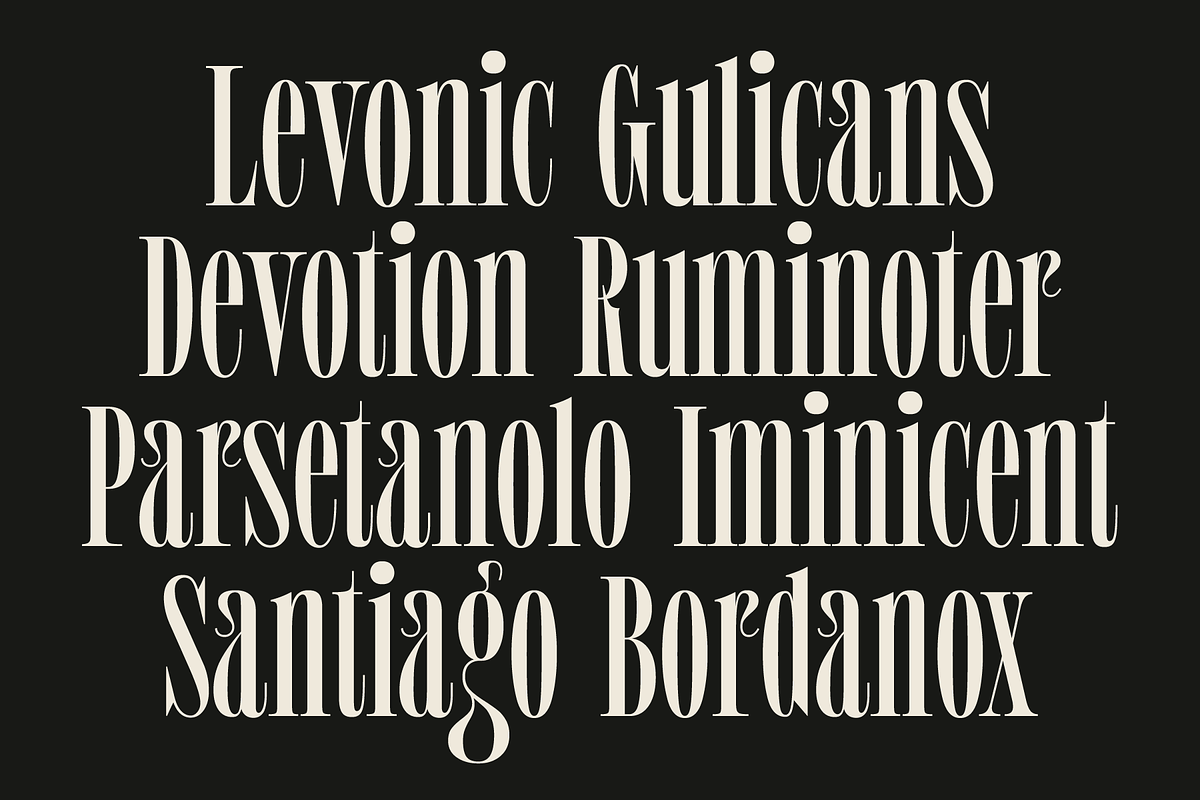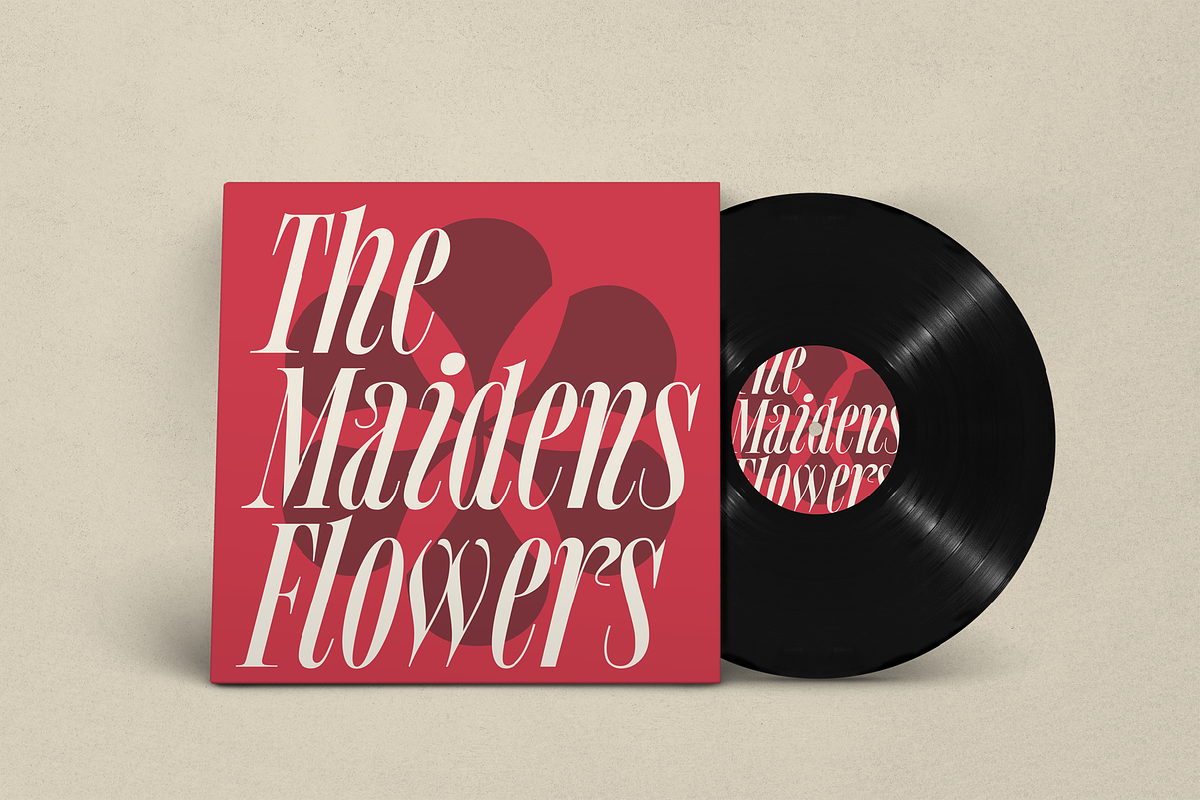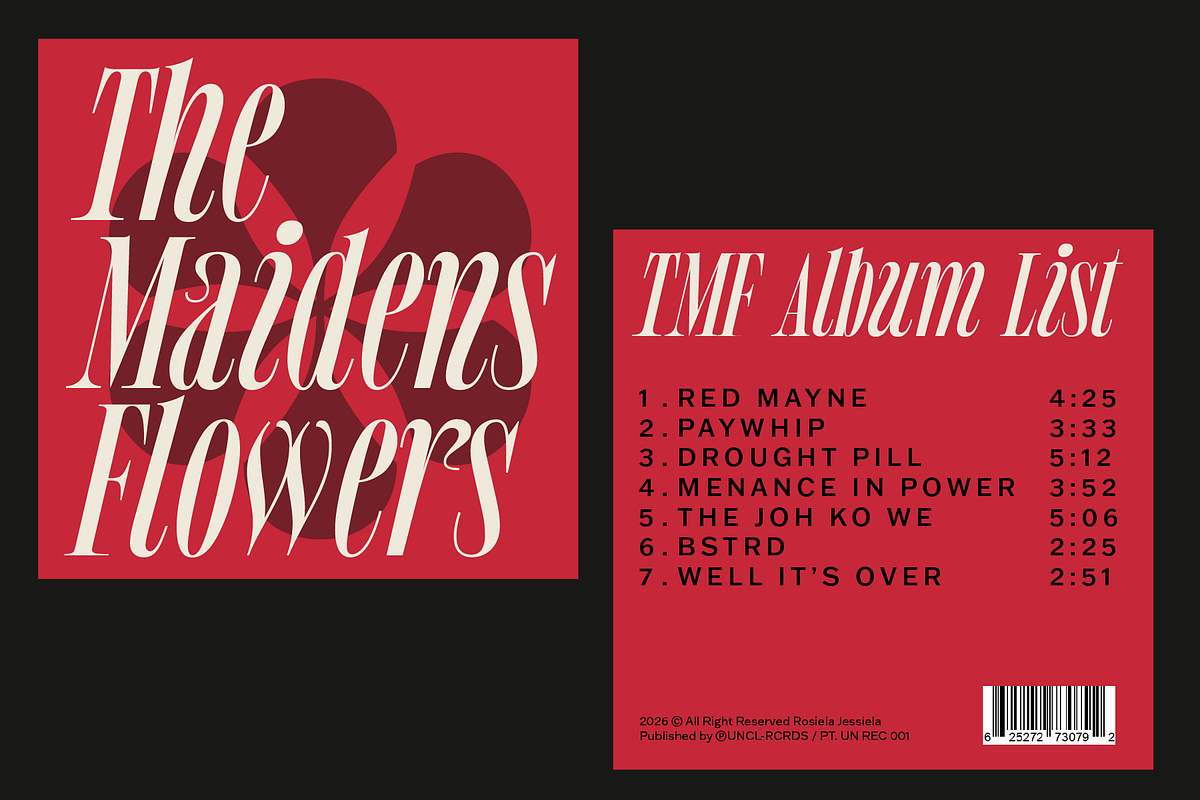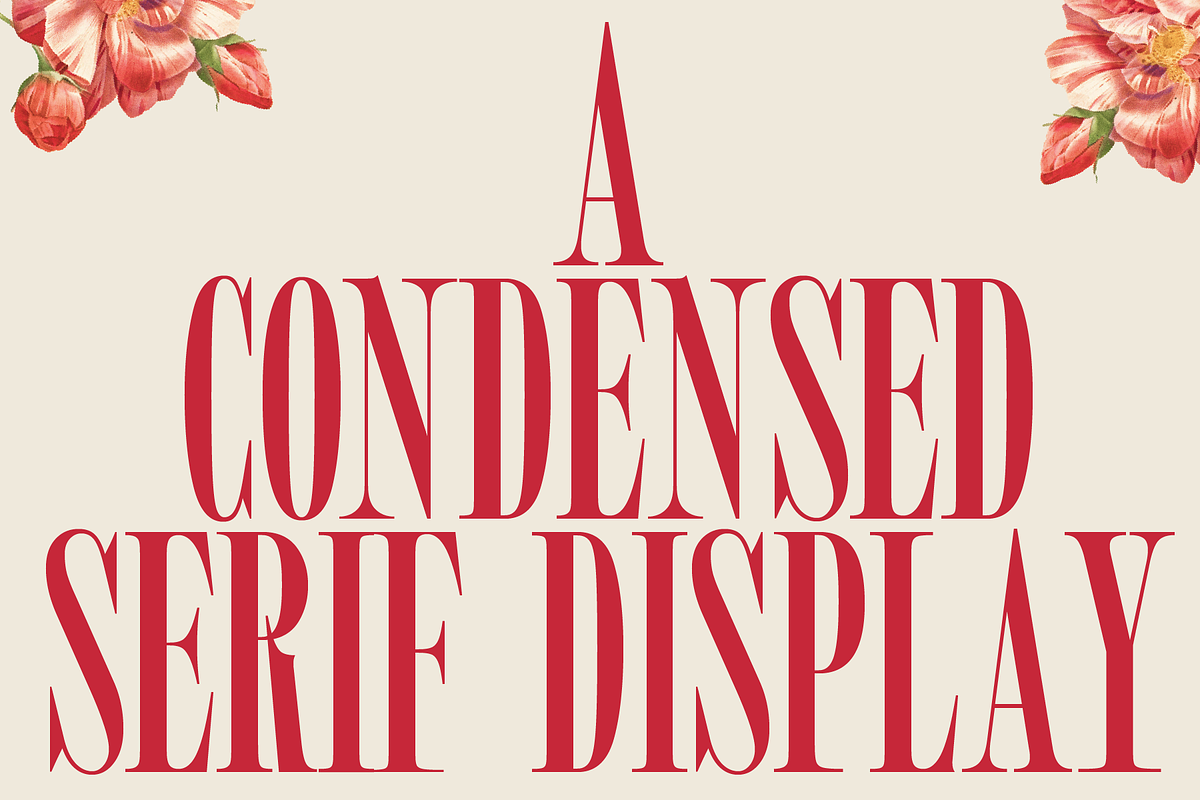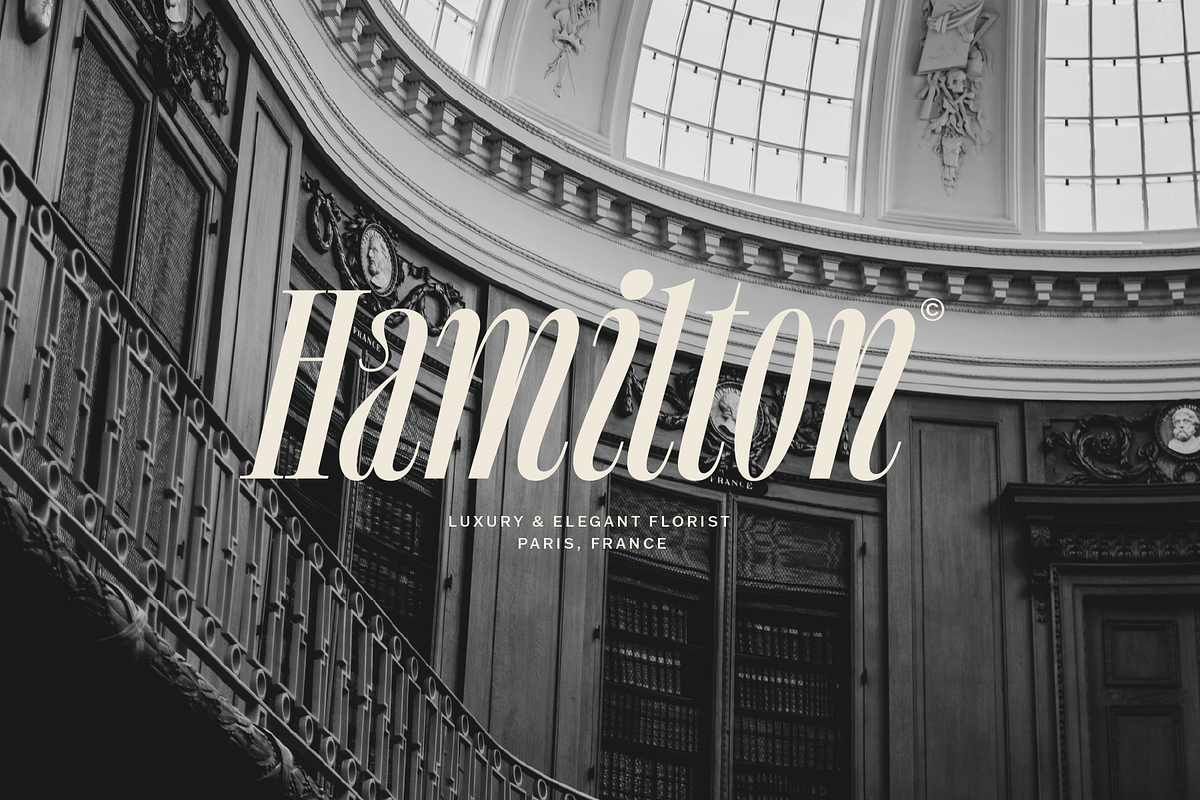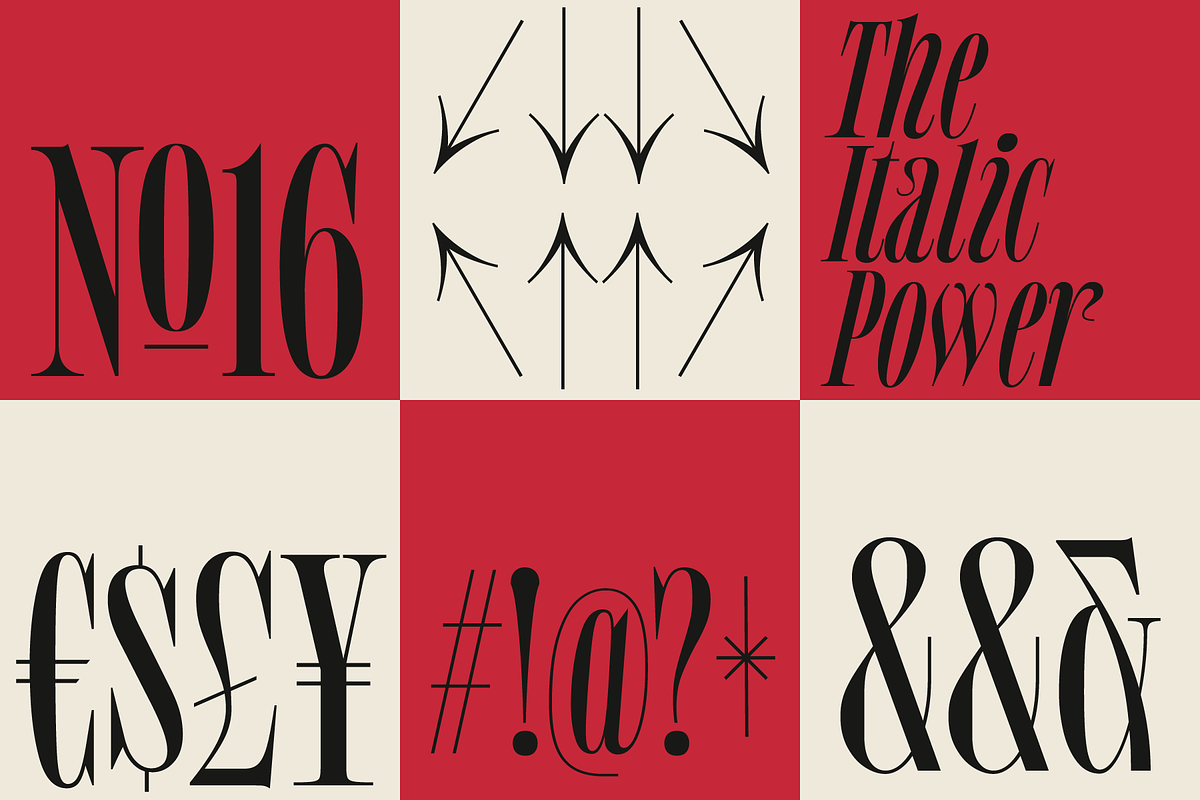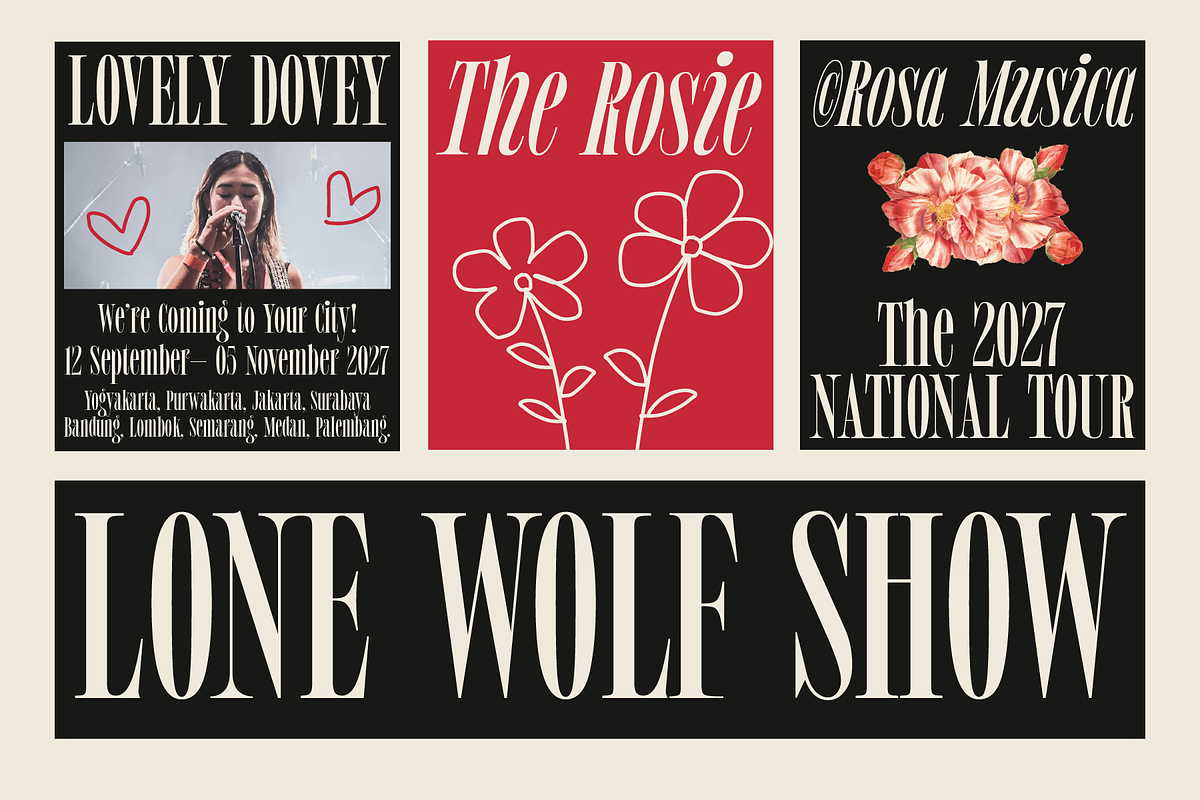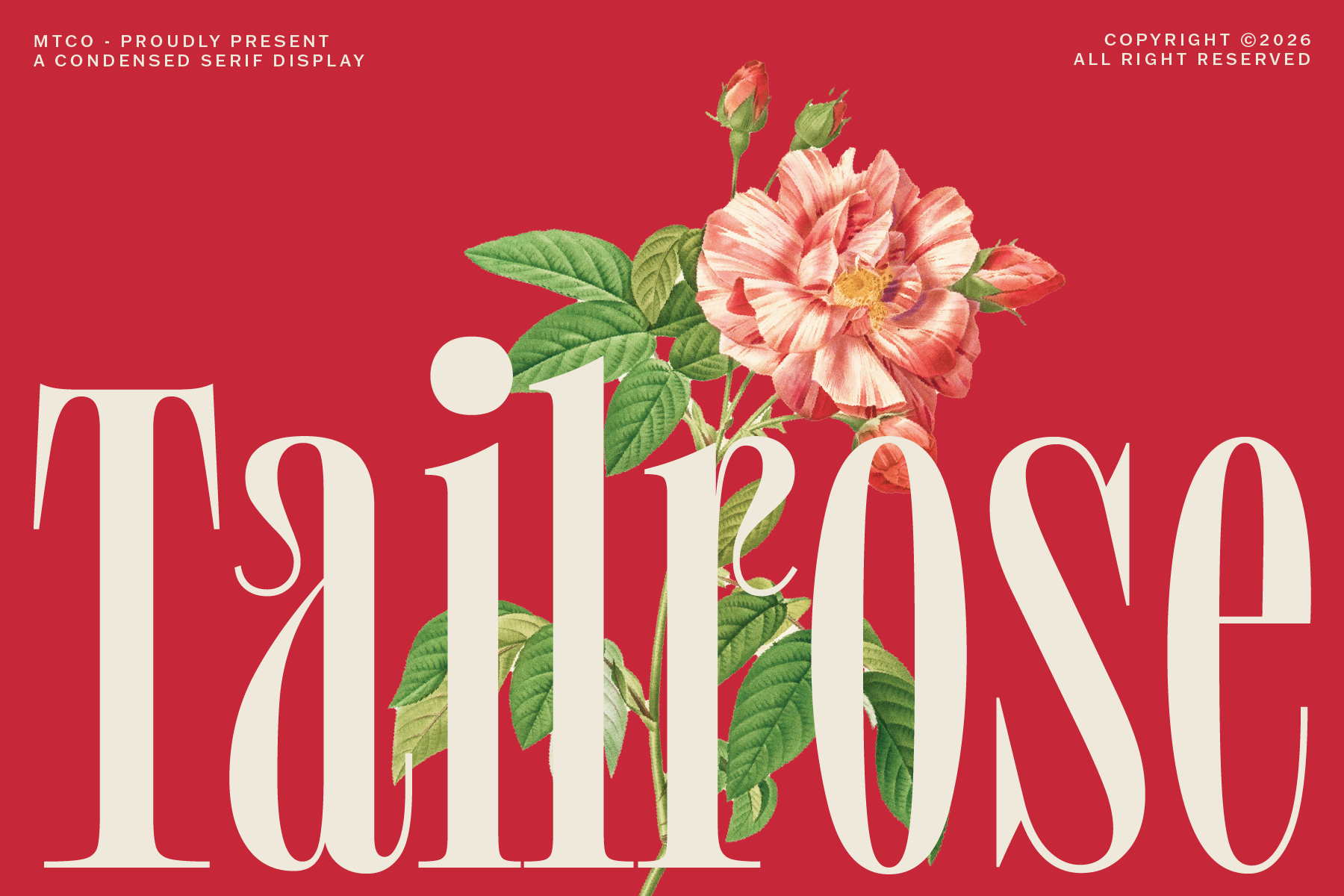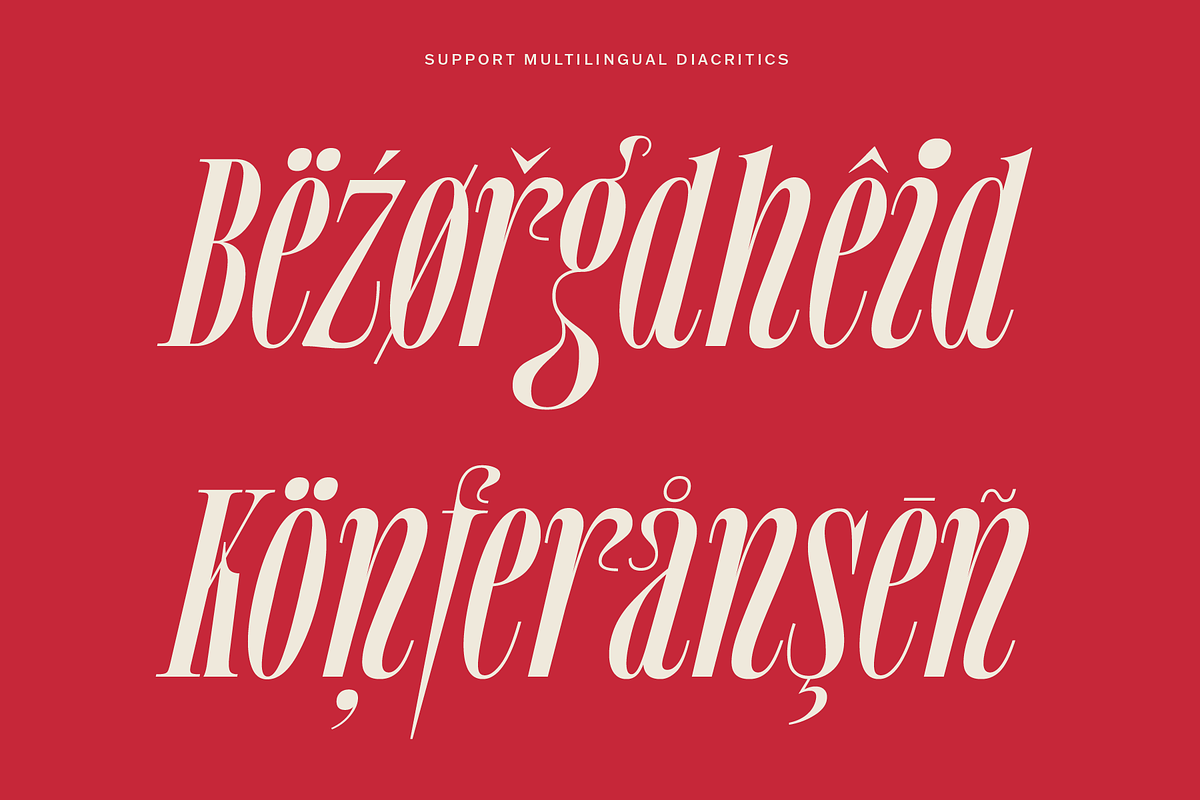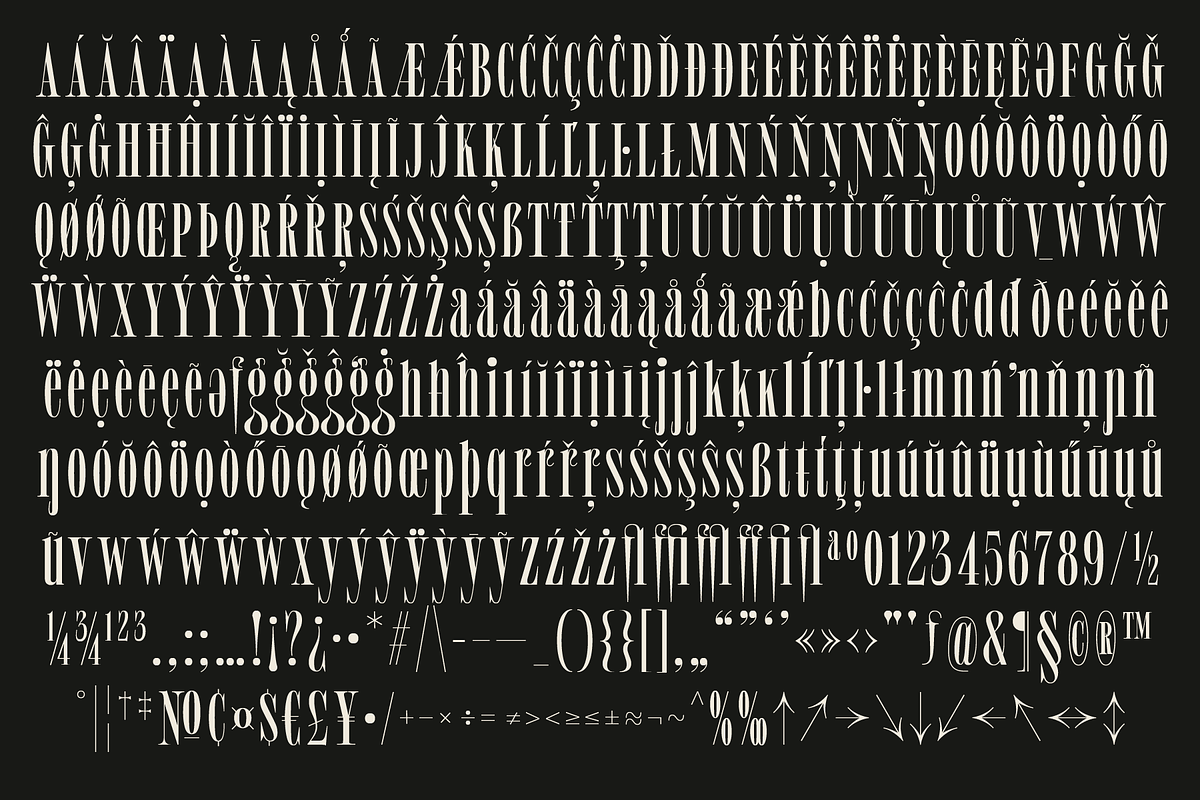
MTC Tailrose - A Quirk Serif Font
Introducing MTC Tailrose, a quirky high-contrast serif with a design taste for luxury elegance and didone tradition.
Tailrose is for the designers who want their type to feel alive. Every letterform carries its own personality long, sweeping tails on the a, r, c, s, and g give it that curvy, handcrafted warmth that balances beautifully with its sharp, editorial contrast. Think classic magazine headlines for antique label design to make it timeless, and luxurious.
Crafted for bold headlines, large-scale poster design, and elegant logotypes. Whether you're building a vintage brand identity, designing a boutique label, or creating editorial layouts with an earthy, curated luxury vibes.
This font is perfect for: boutique branding, luxury packaging, vintage-inspired editorial, feminine brand identities, wedding stationery, craft product labels, and premium poster design